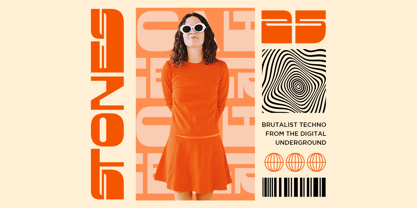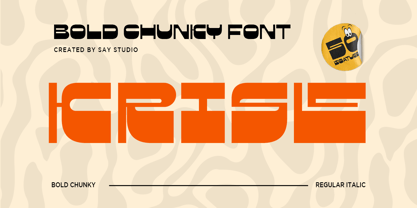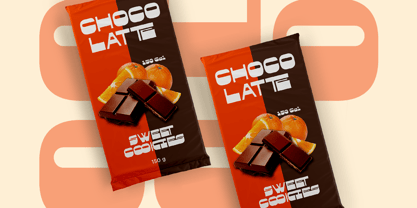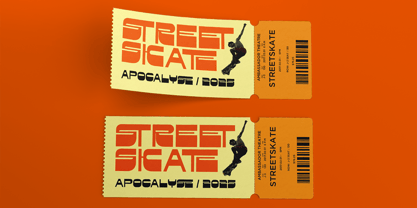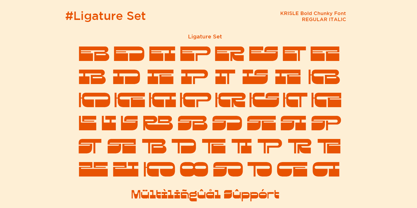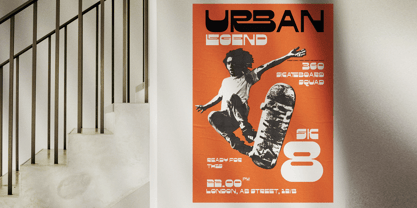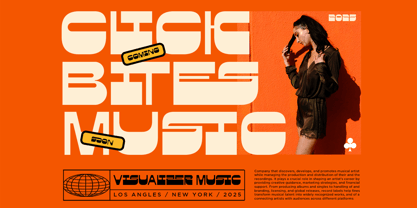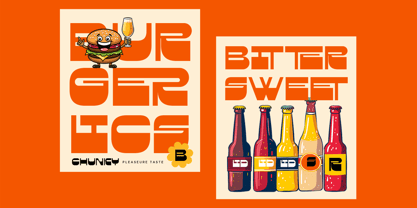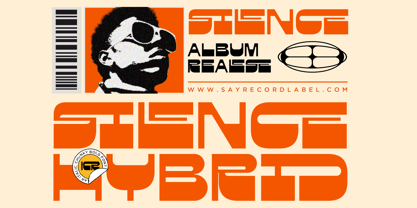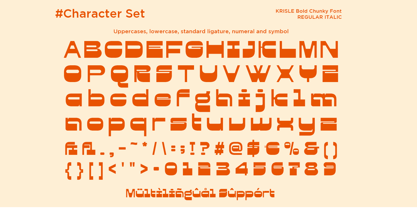
Krisle
by Say Studio
The Krisle Font Family was designed by Mussyayin and published by Say Studio. Krisle contains 2 styles and family package options. More about this family
Krisle is bold chunky sans serif and bold and distinctive display typeface that combines chunky geometric forms with a futuristic attitude and playful retro character. Its compact proportions, rounded details, and unconventional letter shapes create a strong visual identity that instantly grabs attention.
Perfect for streetwear branding, fashion campaigns, music posters, album artwork, packaging, beverage labels, food branding, editorial layouts, logos, signage, advertising, and social media graphics. Krisle is especially effective for large headlines, wordmarks, and eye-catching compositions that need a modern yet experimental feel.
Krisle includes Regular and Italic styles, multilingual support, and a versatile collection of ligatures, giving designers more flexibility to create distinctive typographic arrangements. From bold urban identities and futuristic posters to playful packaging and contemporary fashion graphics, Krisle brings a confident and memorable personality to every project.
• Regular and Italic
• Stylistic Ligature
• Uppercase and Lowercase
• Number, Symbol, and Symbol
• Multilingual Support